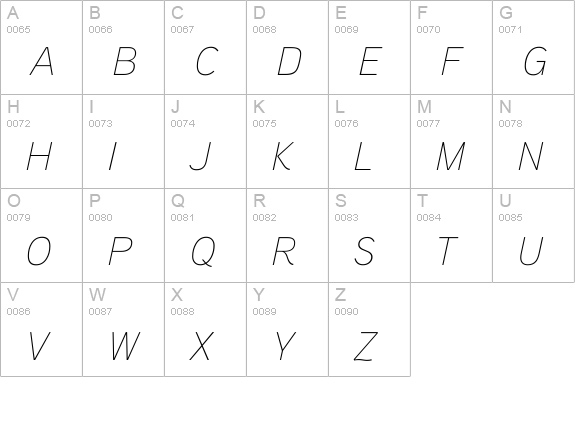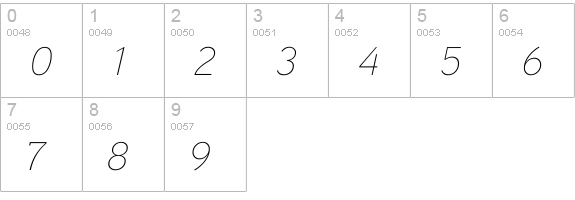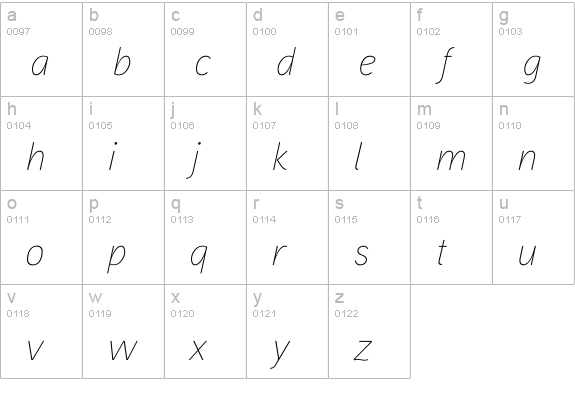
Aaux ProThin Italic Font Details
Aaux ProThin Italic is a distinctive, italic variant in the Aaux typeface family \xE2\x80\x94 well suited to design and typography projects.
Aaux ProThin Italic is a modern and elegant typeface that exudes sophistication and style. Its sleek and slender design adds a touch of refinement to any project, making it perfect for fashion magazines, luxury branding, and upscale designs. The italic styling of Aaux ProThin gives it a dynamic and fluid appearance, ideal for conveying a sense of movement and energy. What sets Aaux ProThin Italic apart is not only its stunning aesthetics but also the versatility it offers. Whether used in headlines, body text, or logos, this font maintains its legibility and impact, making it a versatile choice for a wide range of design applications. And the best part? Aaux ProThin Italic is available for free download at FontsMarket.com. Now you can elevate your designs with this premium font without breaking the bank. Don't miss out on the opportunity to add Aaux ProThin Italic to your font library and unlock a world of creative possibilities.